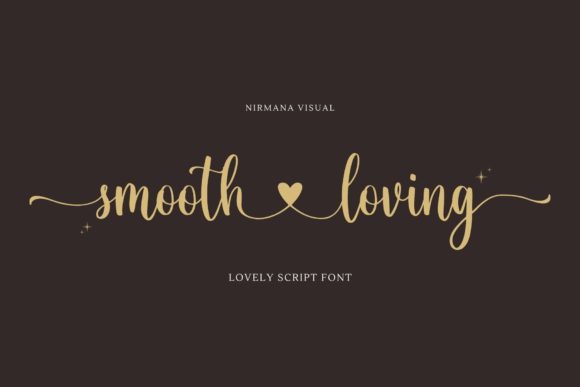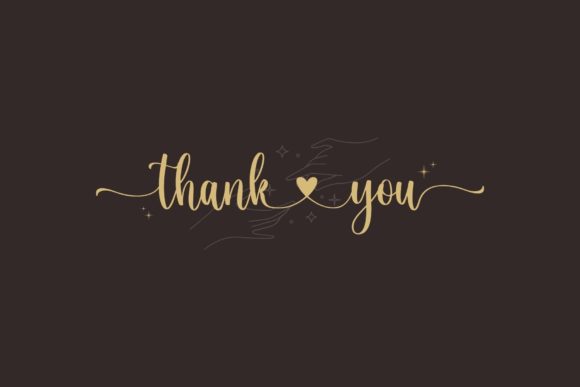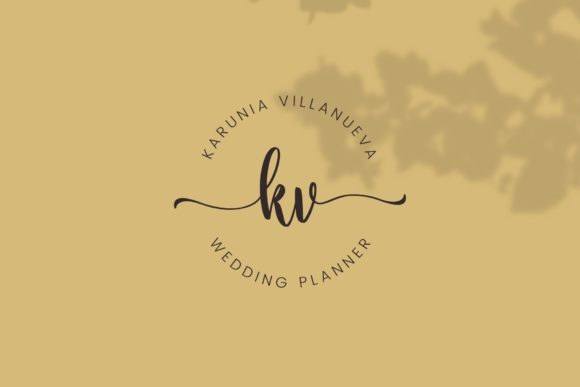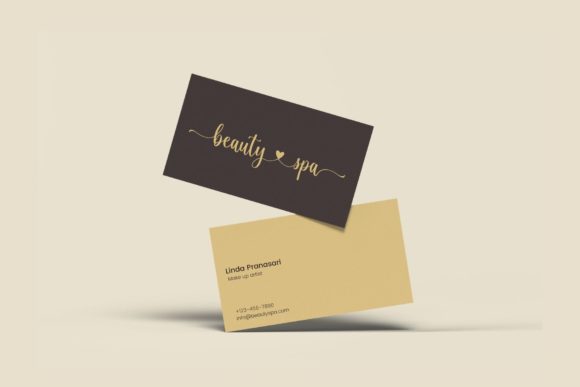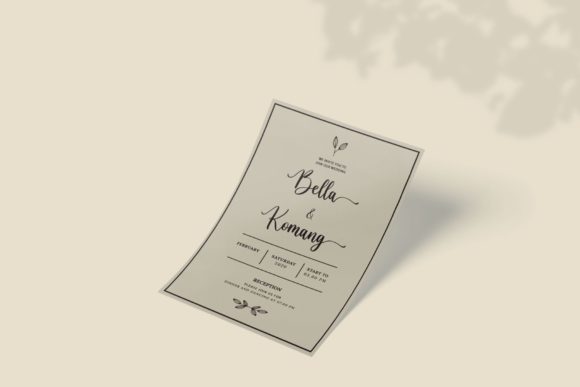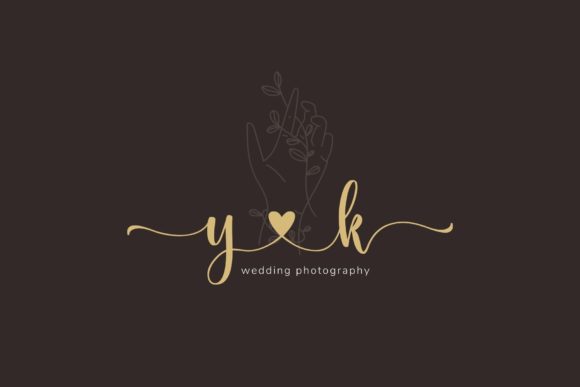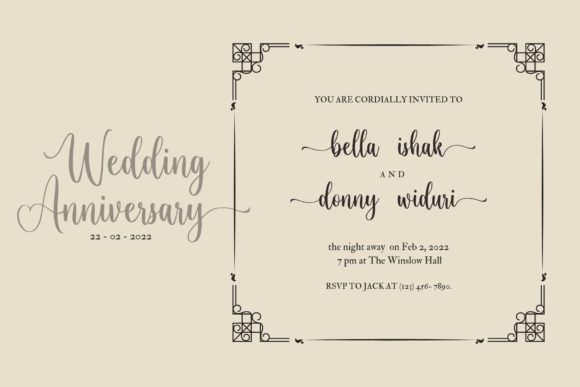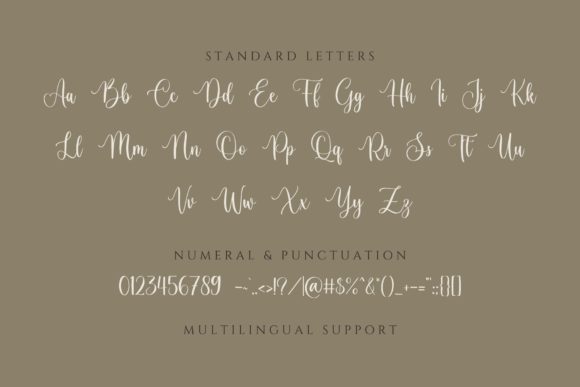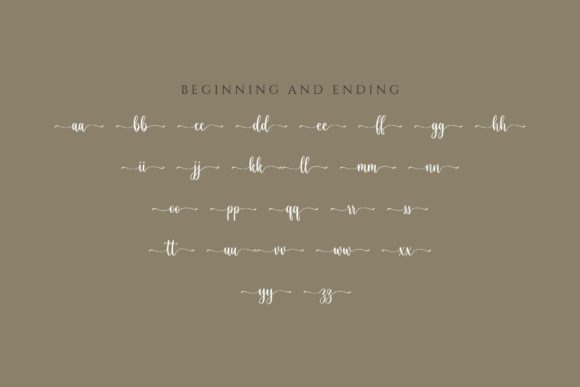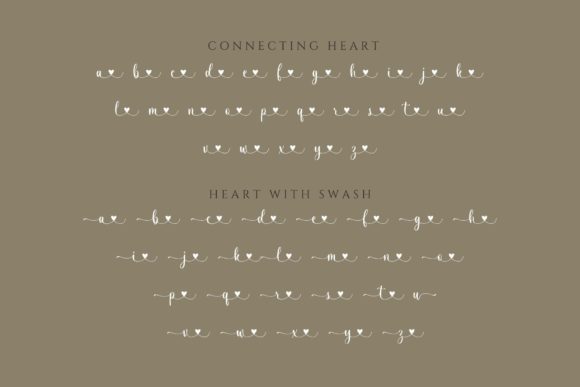
Smooth Loving Font
About Smooth Loving Font
Smooth Loving is a modern calligraphy font.
It is perfect for branding, logos, wedding invites, and every other design which needs a handwritten romantic touch.